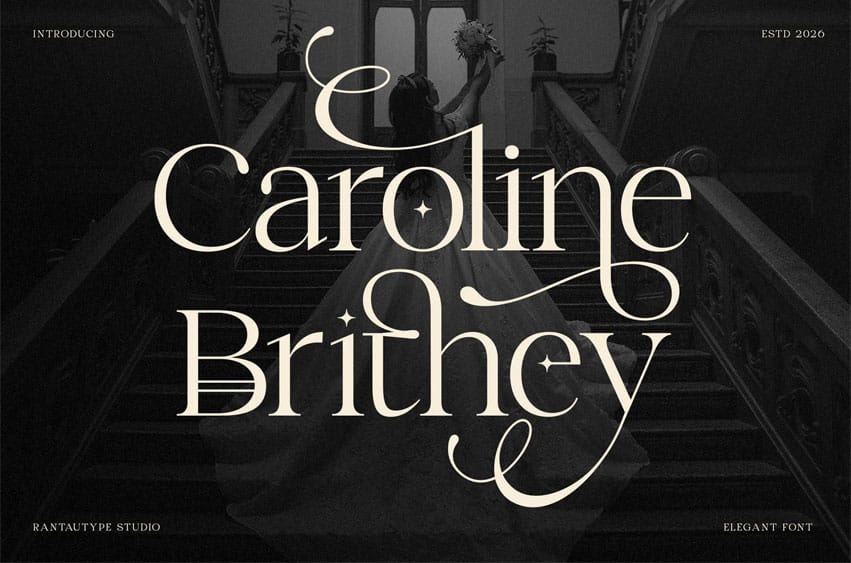
Caroline Britney Font is serif font embrace grace and feminine.
Caroline Britney is a perfectly choice for any creative endeavor, creating, modern, lifestyle design such as logotype, title, cover, branding, invitations, wedding designs, display and magazine, social media posts, advertisements, printed quotes, product packaging, corporate brand, product designs, labels, photography, watermarks, special events and any other project with modern touch.